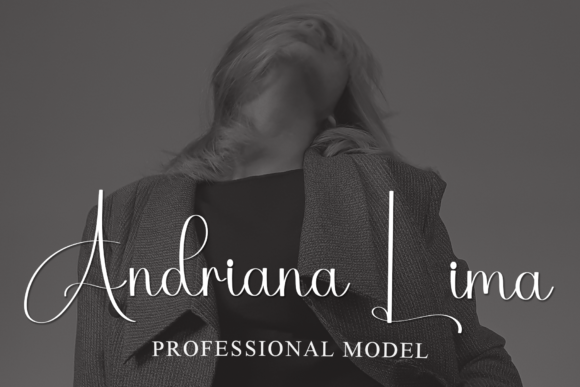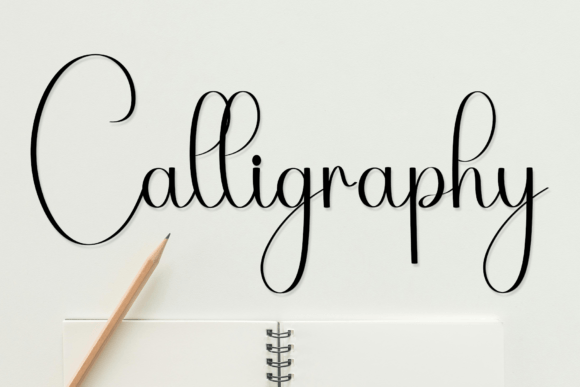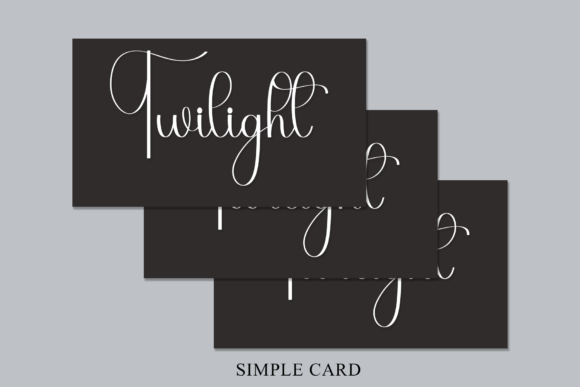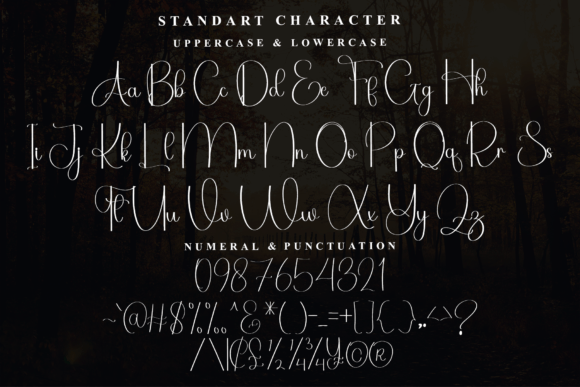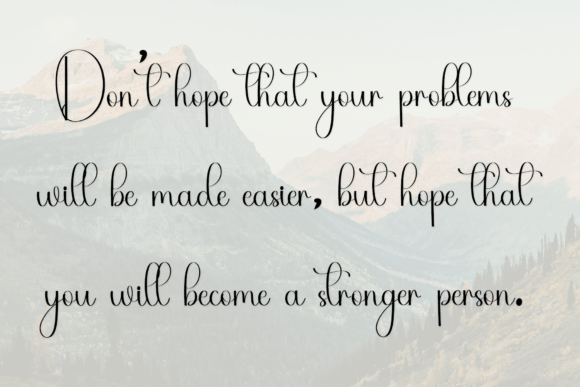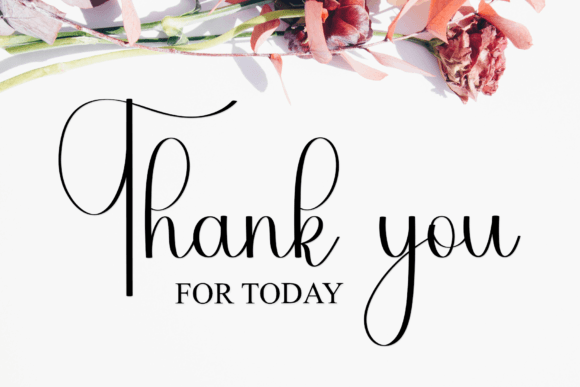
Discover the Charm of Always Font: A Timeless Handwritten Delight
In the world of typography, few fonts manage to capture the essence of elegance and charm as effortlessly as the Always Font. This lovely and timeless handwritten font has been making waves among designers and crafters alike, and for good reason. Its unique blend of classic appeal and modern flair makes it the perfect choice for creating eye-catching logos, branding materials, and quotes that stand out from the crowd.
The Beauty of Handwritten Typography
Handwritten fonts have a special place in the hearts of designers and crafters. They evoke a sense of warmth, personality, and human touch that is often lost in more traditional typography. The Always Font is no exception. With its delicate strokes, flowing curves, and whimsical flair, this font is sure to add a touch of magic to any design project. Whether you’re working on a logo, a branding campaign, or a set of inspirational quotes, the Always Font is the perfect choice for bringing your vision to life.
What Sets Always Font Apart
So, what makes the Always Font so special? For starters, every letter in this font has a unique and beautiful touch that sets it apart from more generic typography. The attention to detail is evident in every stroke, every curve, and every flourish. This font is not just a collection of letters; it’s a work of art that will elevate your designs to new heights. Additionally, the Always Font is PUA (Private Use Area) coded, which means you can access all the amazing glyphs and ligatures easily. This feature makes it incredibly easy to use and customize, even for those without extensive design experience.
One of the most exciting things about the Always Font is its versatility. This font can be used in a wide range of design applications, from logos and branding materials to quotes and social media graphics. Its elegant, cursive script is perfect for creating eye-catching headlines, while its more subtle nuances make it ideal for body text and captions. Whether you’re working on a personal project or a client’s design brief, the Always Font is sure to inspire your creativity and help you achieve your design goals.
Why Designers and Crafters Love Always Font
Designers and crafters are a creative bunch, and they need fonts that can keep up with their imagination and vision. The Always Font has quickly become a favorite among this community, and for good reason. Here are just a few reasons why:
- Elegance and sophistication: The Always Font adds a touch of class and refinement to any design project.
- Unique and beautiful: Every letter has a distinctive character that sets it apart from more generic typography.
- Ease of use: PUA coding makes it easy to access glyphs and ligatures, even for those without extensive design experience.
- Versatility: This font can be used in a wide range of design applications, from logos and branding to quotes and social media graphics.
Tips for Getting the Most Out of Always Font2>
To truly get the most out of the Always Font, here are a few tips to keep in mind:
- Experiment with different sizes and colors: This font looks great in a variety of sizes and colors, so don’t be afraid to get creative.
- Pair it with complementary fonts: The Always Font pairs beautifully with a range of other fonts, so try experimenting with different combinations.
- Use it to add a personal touch: This font is perfect for adding a personal touch to your designs, whether you’re working on a logo, a branding campaign, or a set of inspirational quotes.
In conclusion, the Always Font is a timeless handwritten delight that is sure to capture the hearts of designers and crafters everywhere. Its unique blend of elegance, sophistication, and whimsy makes it the perfect choice for creating eye-catching logos, branding materials, and quotes that stand out from the crowd. With its PUA coding and endless design possibilities, this font is a must-have for anyone looking to elevate their designs to new heights. So why wait? Discover the charm of Always Font today and bring your designs to life in a way you never thought possible.